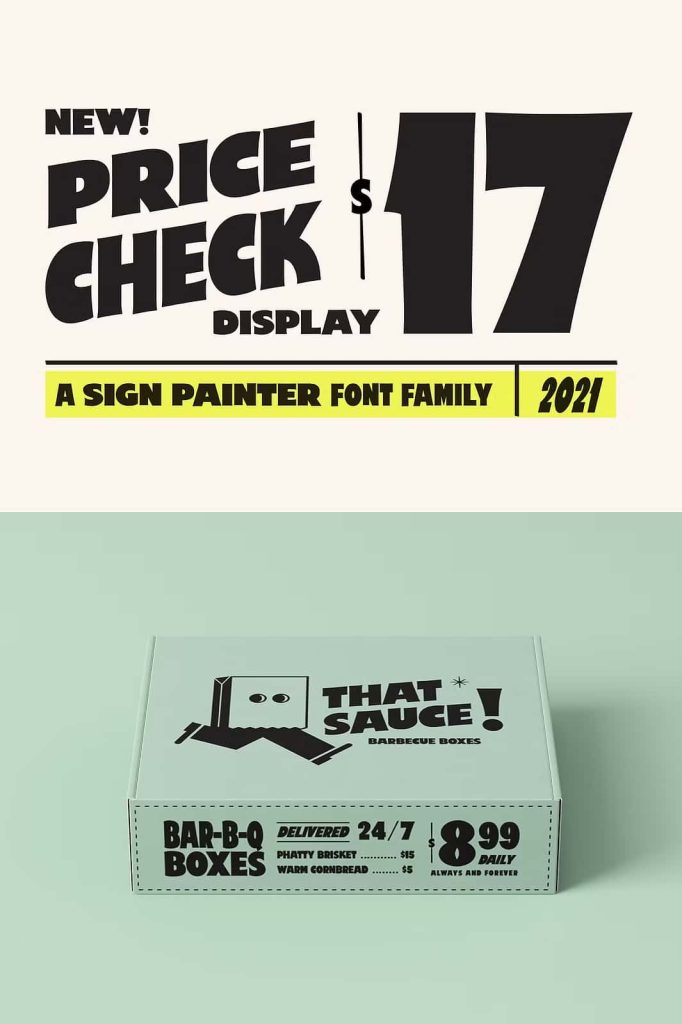
Price Check – A Sign Painter DisplayleastedApril 14, 2025Fonts Price Check is a display typeface modeled after hand-painted characters commonly seen Download